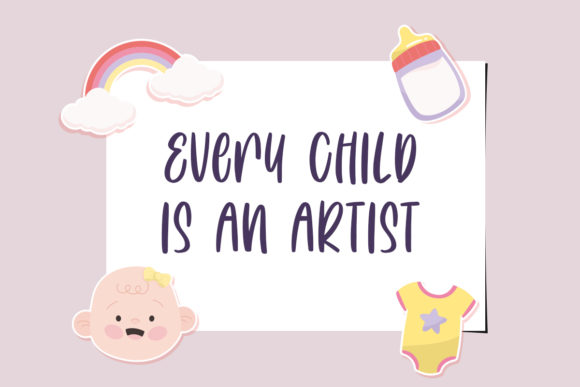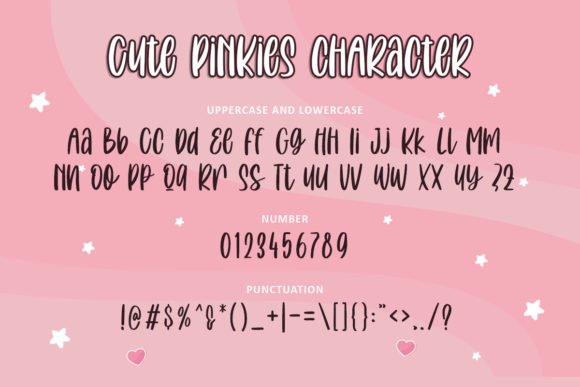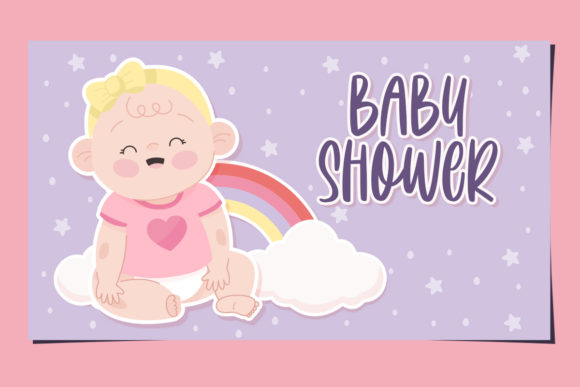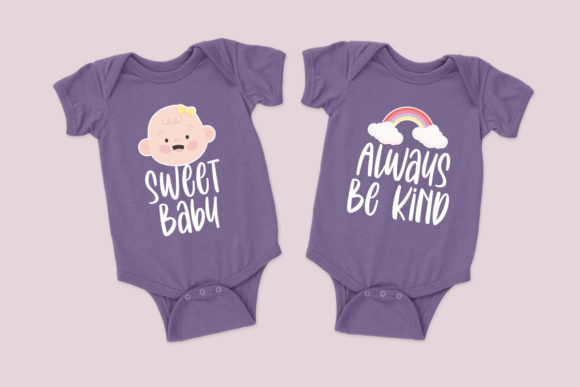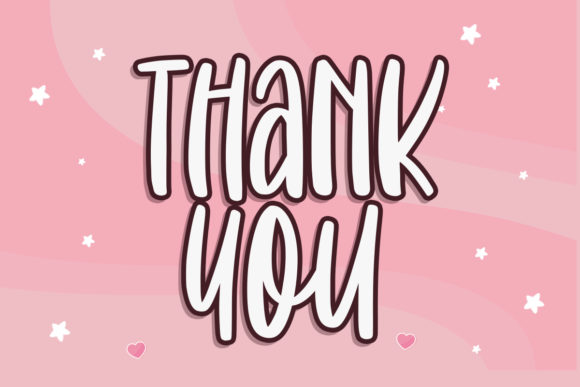
Cute Pinkies Font: The Ultimate Choice for Friendly and Creative Designs
Are you a designer, crafter, or DIY enthusiast looking for a font that can add a touch of friendliness and playfulness to your creative projects? Look no further than Cute Pinkies, a beautiful handwritten font that is sure to delight. In this article, we’ll take a closer look at what makes Cute Pinkies so special and why it’s the perfect choice for your next design or crafting project.
What is Cute Pinkies Font?
Cute Pinkies is a cute and casual handwritten font that exudes an incredibly friendly feel. Its playful and approachable style makes it perfect for a wide range of creative projects, from social media graphics and Instagram posts to calligraphy scripts and DIY crafts. With Cute Pinkies, you can add a personal touch to your designs and make them stand out from the crowd.
Key Features of Cute Pinkies Font
So, what makes Cute Pinkies so special? Here are just a few of its key features:
- Cute and playful style: Cute Pinkies has a fun and playful style that’s sure to bring a smile to your face. Its friendly feel makes it perfect for designs that need to be approachable and relatable.
- Handwritten feel: Cute Pinkies has a beautiful handwritten feel that’s perfect for adding a personal touch to your designs. Its unique and organic style makes it stand out from more traditional fonts.
- Versatile: Cute Pinkies is a versatile font that can be used for a wide range of creative projects, from social media graphics and Instagram posts to calligraphy scripts and DIY crafts.
- Easy to read: Despite its playful style, Cute Pinkies is easy to read and understand, making it perfect for designs that need to communicate a message.
Uses for Cute Pinkies Font
Cute Pinkies is a versatile font that can be used for a wide range of creative projects, including:
- Instagram graphics: Add a touch of friendliness and playfulness to your Instagram posts with Cute Pinkies. Its cute and casual style is perfect for social media graphics.
- Calligraphy scripts: Cute Pinkies has a beautiful handwritten feel that’s perfect for calligraphy scripts. Use it to add a personal touch to your DIY projects.
- DIY crafts: Whether you’re making cards, gift tags, or other DIY crafts, Cute Pinkies is the perfect font to use. Its playful style adds a touch of whimsy and fun to any project.
- Design projects: Cute Pinkies is perfect for a wide range of design projects, from brochures and flyers to posters and banners.
Why Choose Cute Pinkies Font?
So, why choose Cute Pinkies over other fonts? Here are just a few reasons:
- Unique style: Cute Pinkies has a unique and playful style that’s sure to make your designs stand out from the crowd.
- Friendliness: Cute Pinkies has an incredibly friendly feel that’s perfect for designs that need to be approachable and relatable.
- Versatility: Cute Pinkies is a versatile font that can be used for a wide range of creative projects.